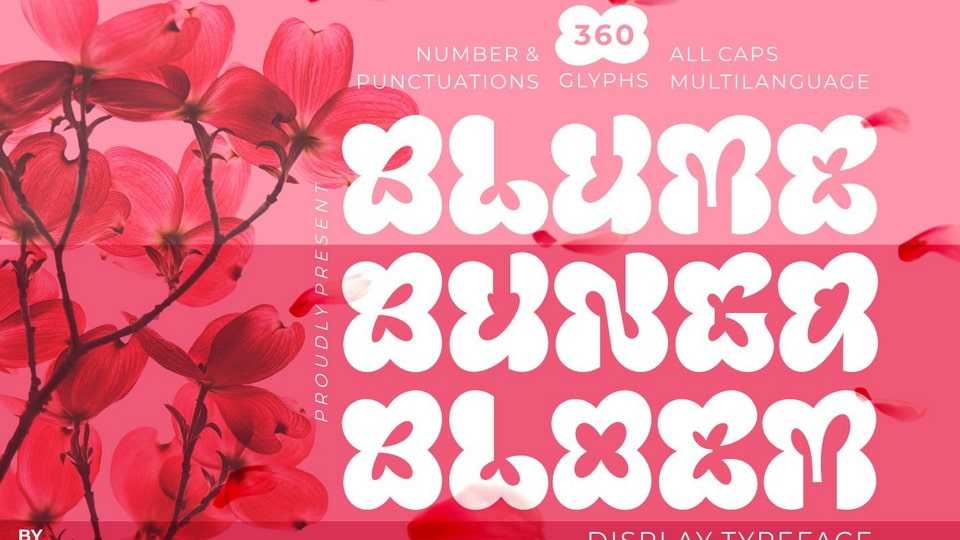
Download Blumebungabloem font, a bold display typeface that has a flower-like shape inspired by flower petals. Blumebungabloem is perfect for branding, packaging, display and editorial use.